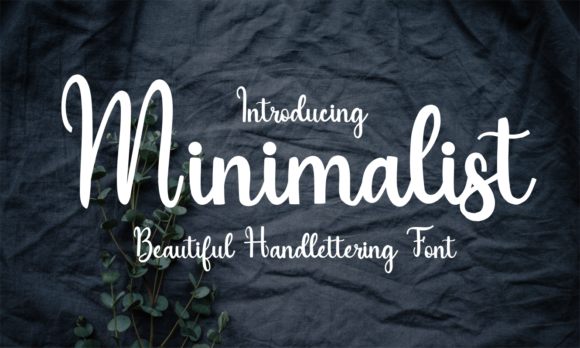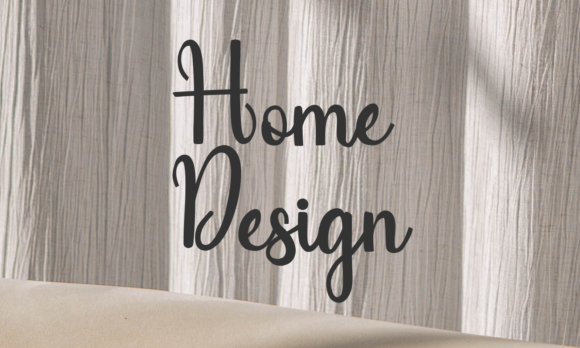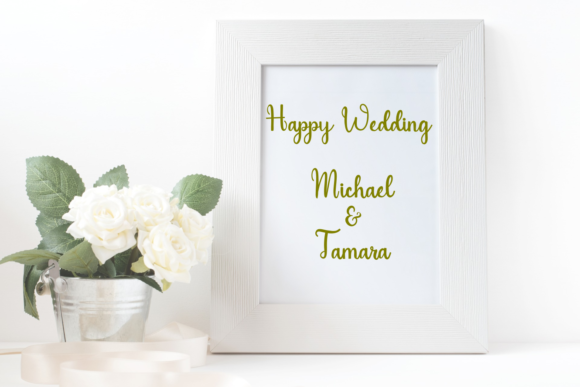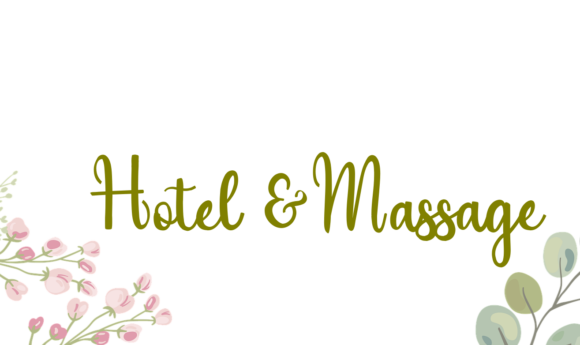
Minimalist Font
About Minimalist Font
Minimalist is a romantic and sweet calligraphy typeface with characters that dance along the baseline. It will add a luxury spark to any design project that you wish to create!